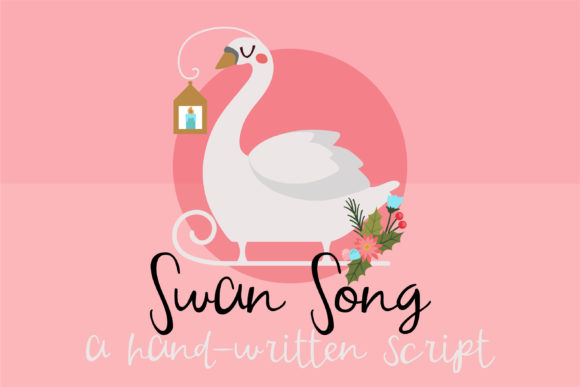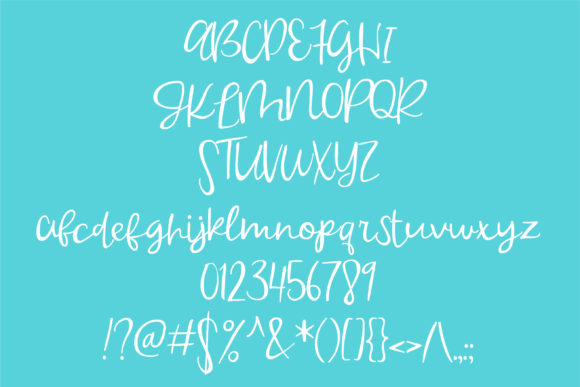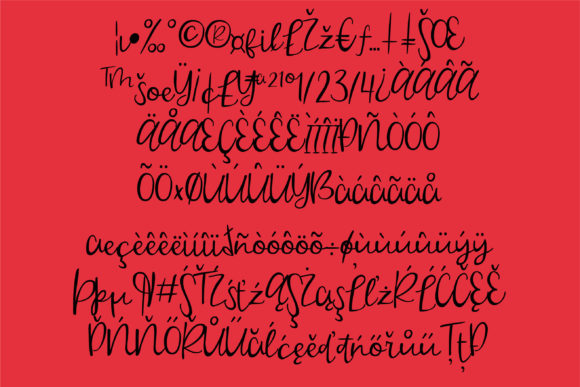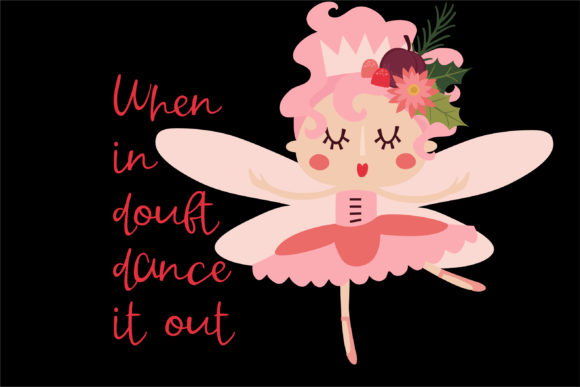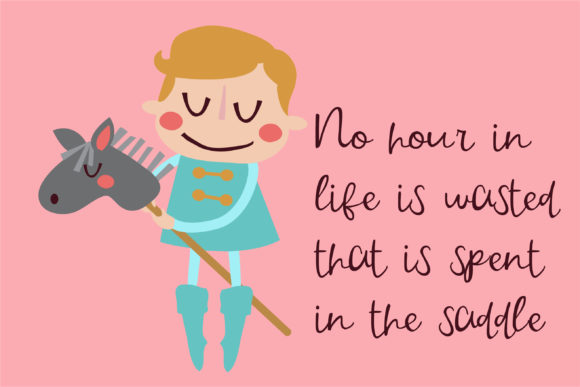
PN Swan Song Font
About PN Swan Song Font
Swan Song is a cute and casual handwritten font with an incredibly friendly feel. Whether you’re looking for fonts for Instagram or calligraphy scripts for DIY projects, Swan Song will turn any creative idea into a true piece of art!